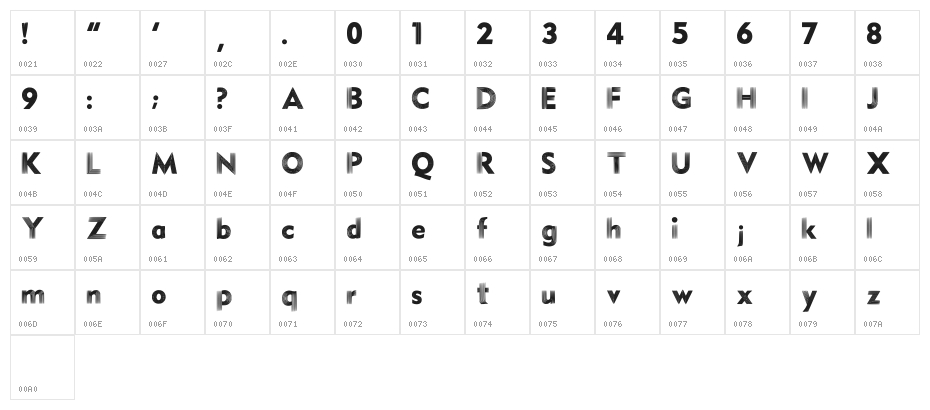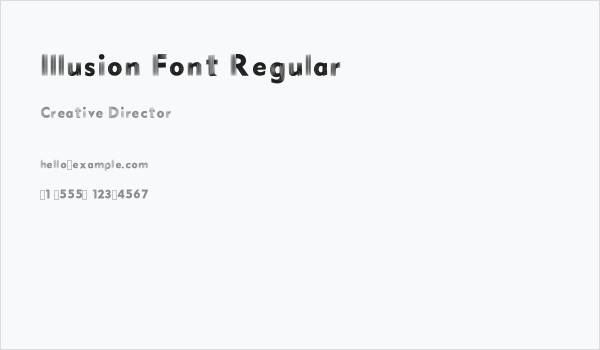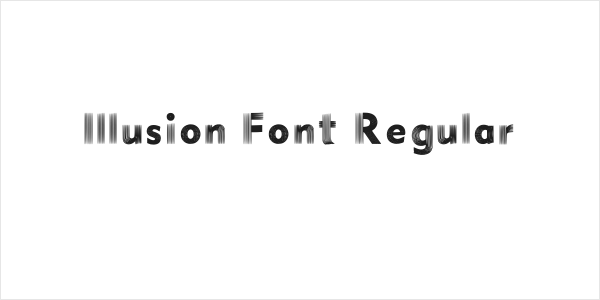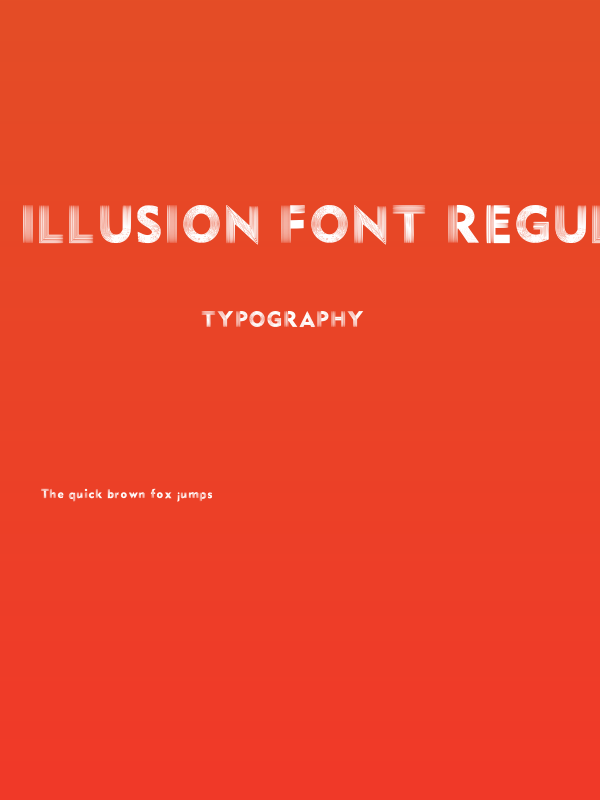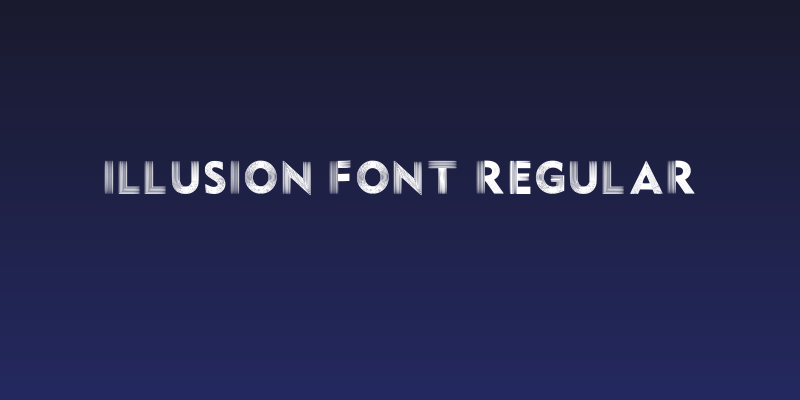
Illusion Font Regular Font
Illusion Font Regular Description
This font features a unique and captivating design that plays with visual perception, creating an illusion of depth and movement. The characters are constructed with a series of parallel lines that vary in density, giving each letter a dynamic and textured appearance. This effect is consistent across uppercase, lowercase, numerals, and special characters, making it a cohesive and visually striking typeface. The bold and artistic style makes it ideal for projects that require a strong visual impact.
Illusion
Proposed ProjectsIdeal for posters, album covers, branding projects, and any design that aims to capture attention with a bold visual statement.